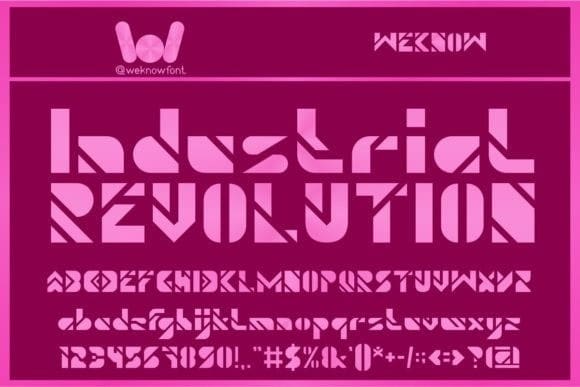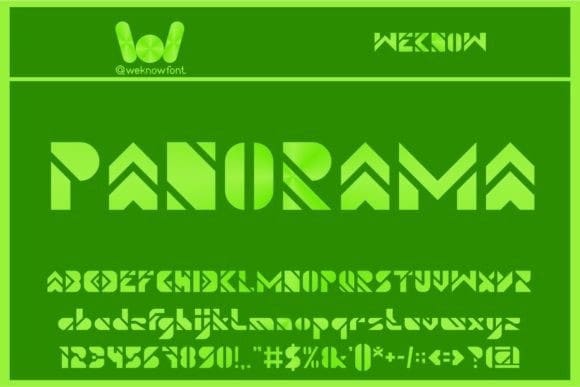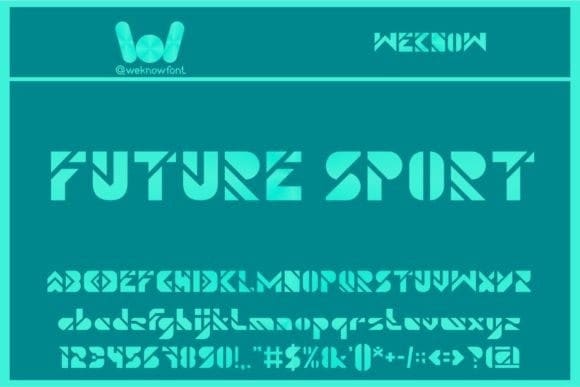
Future Sport Font
Future Sport Font, is a techno-themed display font. Whatever the topic, this font will be a wonderful asset to your font library, as it has the potential to enhance any creation.